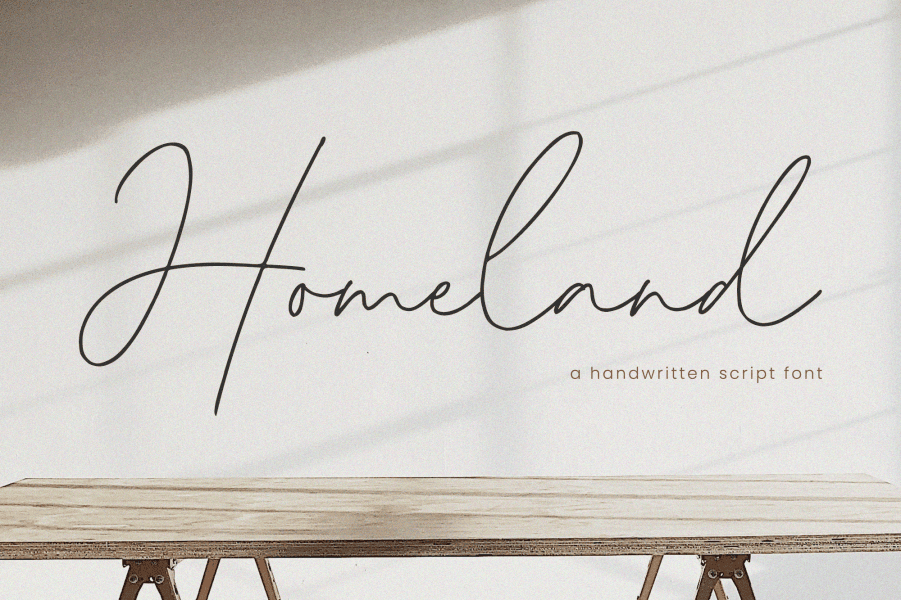
Homeland Free Font . Homeland logo font is similar to a battlefield. Homeland is a natural handwritten font. It is the best choice for creating eye catching logos, branding and quotes. The battlefields are always full of people who recklessly defend themselves, and this series is the story of a soldier who was found after the war and returned home. But any donation are very. 4,794 downloads (4 yesterday) free for personal use. Download homeland italic font · free for personal use · contact me for commercial use : Homeland font is a handwritten script font that is modern and fresh, and will bring a warm and inviting feel to your business. Download homeland font · free for personal use · this demo font is for personal use only! 4 469 téléchargements (19 hier) gratuit pour un usage personnel. Take advantage of the fonts and experience the magic for yourself. Free download homeland logo font.
Homeland font is a handwritten script font that is modern and fresh, and will bring a warm and inviting feel to your business. Download homeland font · free for personal use · this demo font is for personal use only! Download homeland italic font · free for personal use · contact me for commercial use : The battlefields are always full of people who recklessly defend themselves, and this series is the story of a soldier who was found after the war and returned home. But any donation are very. It is the best choice for creating eye catching logos, branding and quotes. Free download homeland logo font. 4 469 téléchargements (19 hier) gratuit pour un usage personnel. 4,794 downloads (4 yesterday) free for personal use. Take advantage of the fonts and experience the magic for yourself.
Homeland Free Font 4 469 téléchargements (19 hier) gratuit pour un usage personnel. 4,794 downloads (4 yesterday) free for personal use. Download homeland font · free for personal use · this demo font is for personal use only! Homeland logo font is similar to a battlefield. Homeland font is a handwritten script font that is modern and fresh, and will bring a warm and inviting feel to your business. But any donation are very. Homeland is a natural handwritten font. The battlefields are always full of people who recklessly defend themselves, and this series is the story of a soldier who was found after the war and returned home. Free download homeland logo font. Download homeland italic font · free for personal use · contact me for commercial use : 4 469 téléchargements (19 hier) gratuit pour un usage personnel. Take advantage of the fonts and experience the magic for yourself. It is the best choice for creating eye catching logos, branding and quotes.
Homeland Windows font free for Personal Homeland Free Font Download homeland font · free for personal use · this demo font is for personal use only! Take advantage of the fonts and experience the magic for yourself. Homeland font is a handwritten script font that is modern and fresh, and will bring a warm and inviting feel to your business. But any donation are very. Download homeland italic font. Homeland Free Font.
Homeland Font by Runsell Graphic · Creative Fabrica Homeland Free Font Free download homeland logo font. The battlefields are always full of people who recklessly defend themselves, and this series is the story of a soldier who was found after the war and returned home. 4,794 downloads (4 yesterday) free for personal use. Homeland font is a handwritten script font that is modern and fresh, and will bring a warm and. Homeland Free Font.
Homeland Font Dafont Free Homeland Free Font 4,794 downloads (4 yesterday) free for personal use. Take advantage of the fonts and experience the magic for yourself. Download homeland font · free for personal use · this demo font is for personal use only! Free download homeland logo font. Homeland font is a handwritten script font that is modern and fresh, and will bring a warm and inviting. Homeland Free Font.
Homeland Font 1001 Free Fonts Homeland Free Font It is the best choice for creating eye catching logos, branding and quotes. 4,794 downloads (4 yesterday) free for personal use. 4 469 téléchargements (19 hier) gratuit pour un usage personnel. Homeland font is a handwritten script font that is modern and fresh, and will bring a warm and inviting feel to your business. Homeland logo font is similar to. Homeland Free Font.
Homeland Font FREE Download Hyperpix Homeland Free Font Take advantage of the fonts and experience the magic for yourself. Homeland is a natural handwritten font. Download homeland italic font · free for personal use · contact me for commercial use : It is the best choice for creating eye catching logos, branding and quotes. 4,794 downloads (4 yesterday) free for personal use. Free download homeland logo font. 4. Homeland Free Font.
Homeland Font by janurmasahmad · Creative Fabrica Homeland Free Font Homeland is a natural handwritten font. 4,794 downloads (4 yesterday) free for personal use. The battlefields are always full of people who recklessly defend themselves, and this series is the story of a soldier who was found after the war and returned home. Download homeland font · free for personal use · this demo font is for personal use only!. Homeland Free Font.
Homeland Font 1001 Free Fonts Homeland Free Font Download homeland font · free for personal use · this demo font is for personal use only! 4 469 téléchargements (19 hier) gratuit pour un usage personnel. 4,794 downloads (4 yesterday) free for personal use. But any donation are very. Homeland logo font is similar to a battlefield. Homeland is a natural handwritten font. Free download homeland logo font. The. Homeland Free Font.
Homeland Font Download Free Font Homeland Free Font Download homeland font · free for personal use · this demo font is for personal use only! 4 469 téléchargements (19 hier) gratuit pour un usage personnel. Take advantage of the fonts and experience the magic for yourself. It is the best choice for creating eye catching logos, branding and quotes. 4,794 downloads (4 yesterday) free for personal use. Homeland. Homeland Free Font.
Beloved Homeland Font by GiaLetter · Creative Fabrica Homeland Free Font Homeland logo font is similar to a battlefield. Download homeland font · free for personal use · this demo font is for personal use only! Homeland is a natural handwritten font. Homeland font is a handwritten script font that is modern and fresh, and will bring a warm and inviting feel to your business. 4 469 téléchargements (19 hier) gratuit. Homeland Free Font.